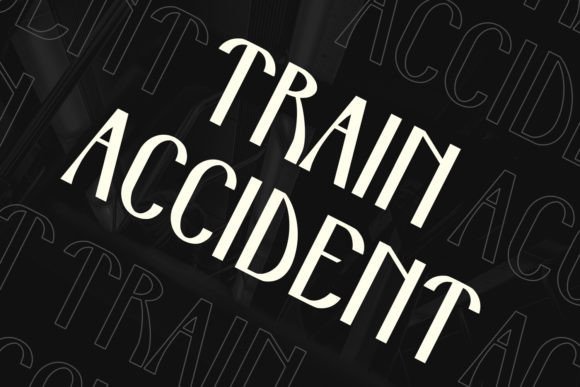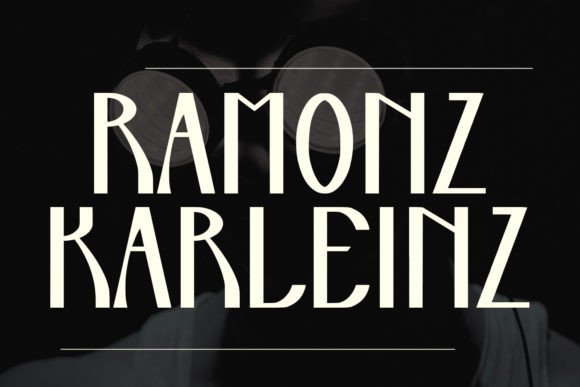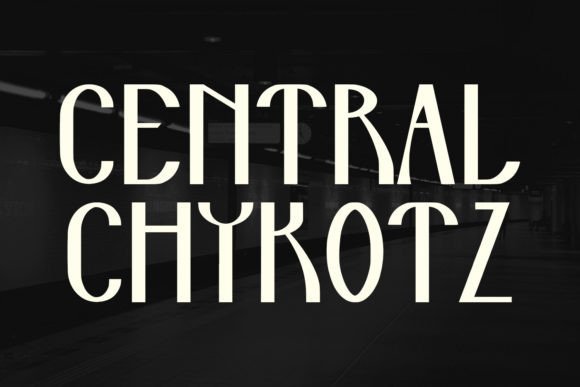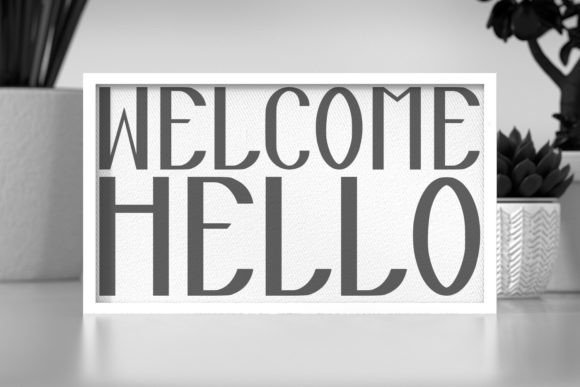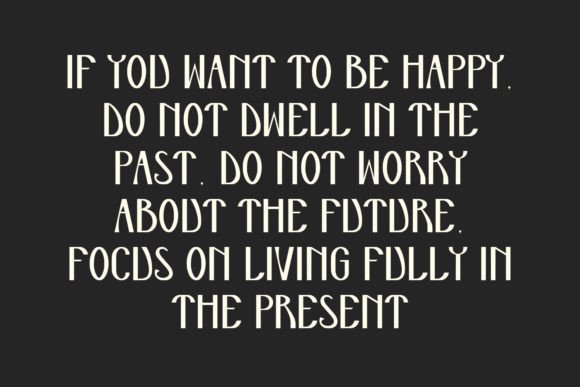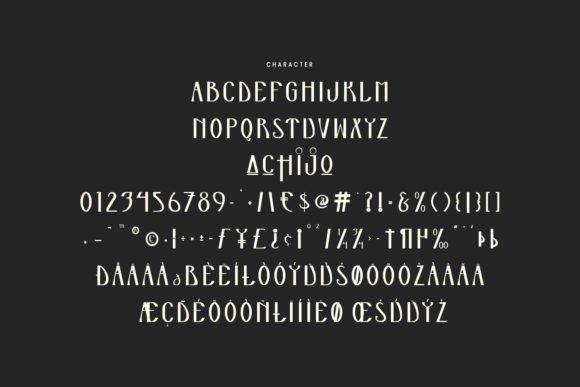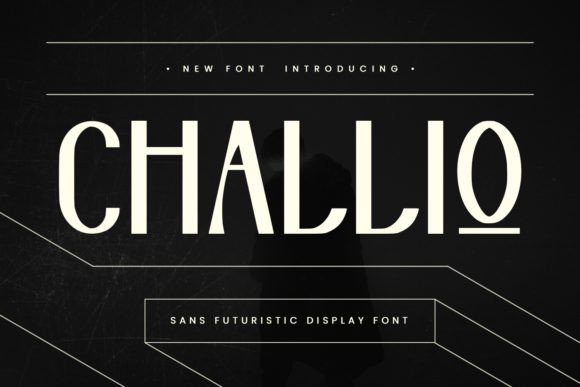
Introducing Challio Font: The Ultimate Modern Display Font
In the world of typography, fonts play a crucial role in conveying the tone and aesthetic of a design project. For designers and crafters looking to make a bold statement, Challio Font is an excellent choice. This modern, futuristic display font is designed to turn heads with its sleek look, clean lines, and sharp edges.
The Design and Style of Challio Font
Challio Font boasts a unique style that exudes a tech-forward, digital vibe. Its futuristic design makes it perfect for projects related to technology, games, or sci-fi themes. The font’s bold and sleek appearance is ideal for creating eye-catching titles, logos, or posters that demand attention.
One of the standout features of Challio Font is its clean lines and sharp edges. These design elements give the font a crisp, modern look that is both visually appealing and highly legible. Whether you’re designing a logo, title, or poster, Challio Font is sure to make a lasting impression.
Perfect for Technology, Gaming, and Sci-Fi Projects
Challio Font’s futuristic design makes it an excellent choice for projects related to technology, gaming, or sci-fi themes. The font’s bold and sleek appearance is perfect for:
- Technology startups and innovative companies looking to make a bold statement
- Game developers seeking to create eye-catching titles and logos
- Sci-fi authors and filmmakers looking to add a touch of futurism to their branding
Key Features and Benefits of Challio Font
So, what makes Challio Font an excellent choice for designers and crafters? Here are some key features and benefits:
- Modern and futuristic design: Challio Font boasts a sleek and bold design that is perfect for making a statement
- Clean lines and sharp edges: The font’s clean lines and sharp edges give it a crisp, modern look that is both visually appealing and highly legible
- Highly versatile: Challio Font can be used for a wide range of design projects, from titles and logos to posters and more
- Easy to read: Despite its bold and futuristic design, Challio Font is highly legible, making it perfect for use in a variety of contexts
In conclusion, Challio Font is an excellent choice for designers and crafters looking to add a touch of modernity and futurism to their design projects. Its bold and sleek appearance, clean lines, and sharp edges make it perfect for creating eye-catching titles, logos, or posters. With its highly versatile design and ease of use, Challio Font is sure to become a go-to font for designers and crafters alike.